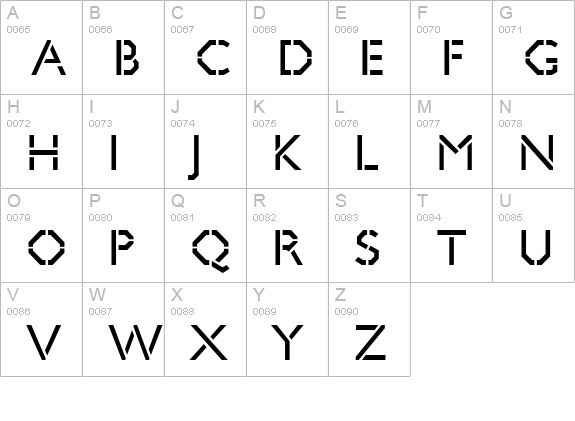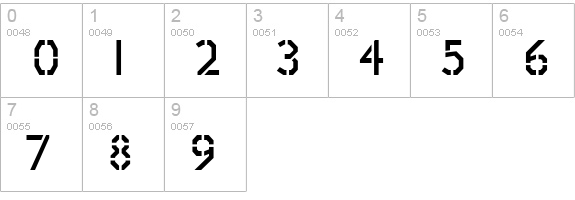
The Jillican War font is a bold and dynamic typeface that exudes strength and power. Its sharp edges and intricate detailing give it a futuristic and modern appeal, making it perfect for projects that require a touch of edginess and sophistication. The Jillican War font is versatile and can be used for a variety of design purposes, from logo designs to poster layouts. What sets the Jillican War font apart is that it is available for free download at FontsMarket.com. This means that you can easily access this stunning font without any cost, making it a valuable addition to your font collection. Whether you're a professional designer or a hobbyist looking to elevate your projects, the Jillican War font is a must-have font that will make your designs stand out. Get your hands on this impressive font today and unleash your creativity with its unique style and flair.